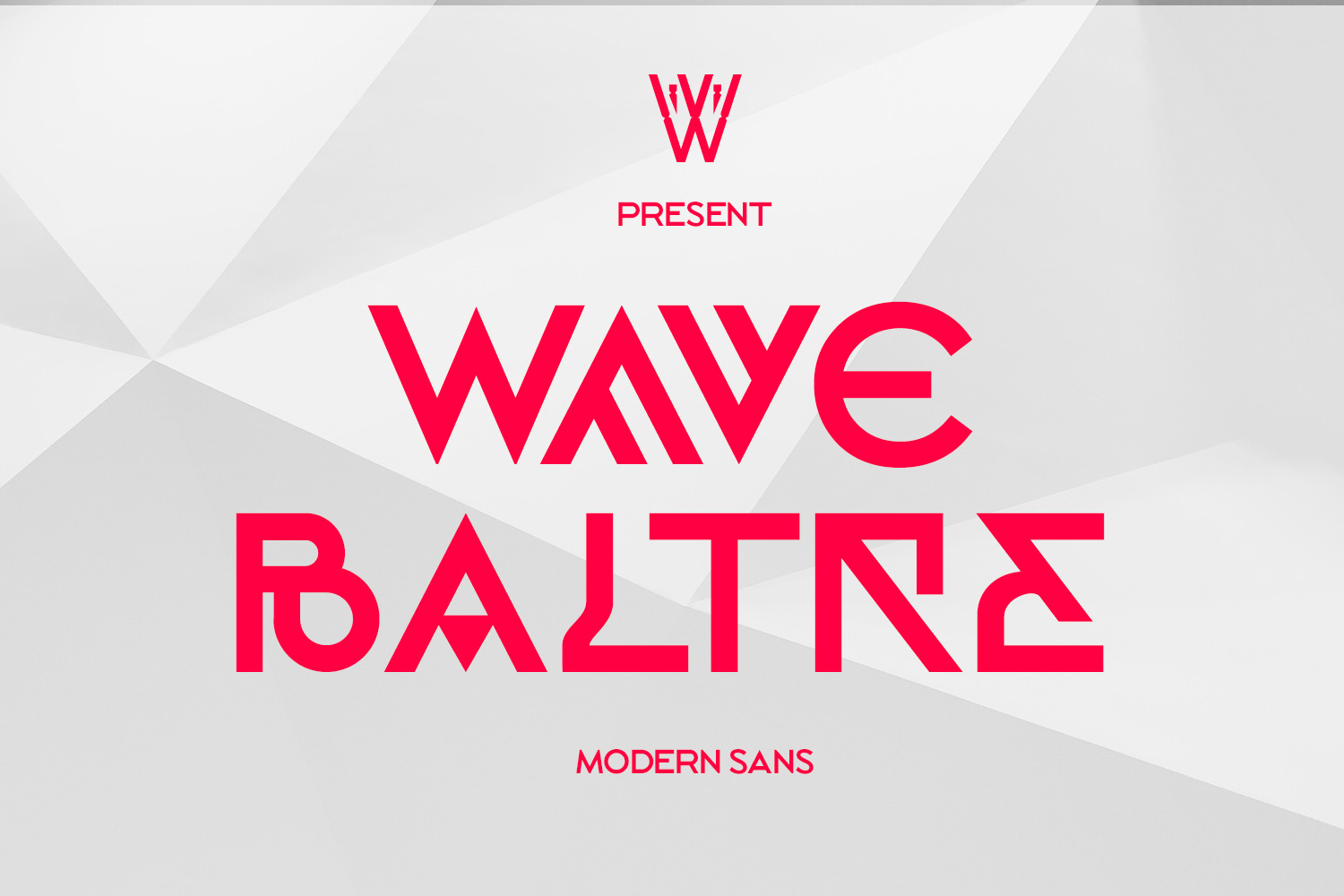
Wave Baltre Font | Modern Futuristic
The Wave Baltre Font is a cutting-edge and dynamic typeface that embodies the essence of modernity and futurism. With its sleek lines and bold, geometric shapes, this font brings a sense of innovation and forward-thinking design to any project. Whether you’re creating branding materials for tech companies, designing futuristic interfaces, or crafting sci-fi-themed artwork, the Wave Baltre Font adds a touch of contemporary flair that captures attention. Its versatility and modern aesthetic make it perfect for digital displays, logos, and editorial layouts. Embrace the future of design with the Wave Baltre Font.